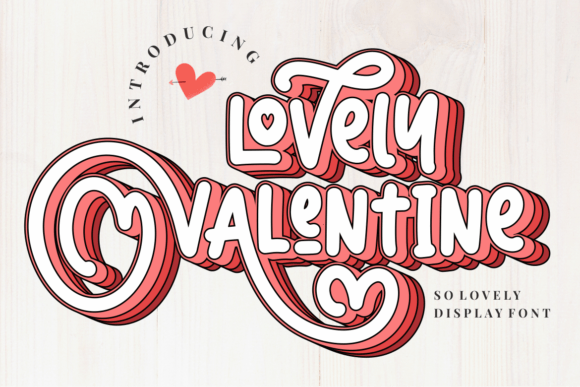
Looking for the perfect font to add a touch of romance to your designs? Look no further than Lovely Valentine Font! Created by jinanstd, this lovely, cute, and stylish display font is the perfect addition to any Valentine's Day-themed project or any project that requires a romantic touch.
With Lovely Valentine Font, you'll be able to add a touch of whimsy and sweetness to your designs that is sure to capture the hearts of your audience. This font is PUA encoded, making it easy to access all of the glyphs and swashes you need to create stunning designs.
Whether you're designing a Valentine's Day card, a t-shirt for your sweetheart, or a romantic poster, Lovely Valentine Font is the perfect choice. Its unique and eye-catching style will set your designs apart and make them truly stand out.
So why wait? Download Lovely Valentine Font today and let your creativity soar! With its beautiful curves, intricate details, and stunning design, this font is sure to become a favorite among designers and creatives everywhere.